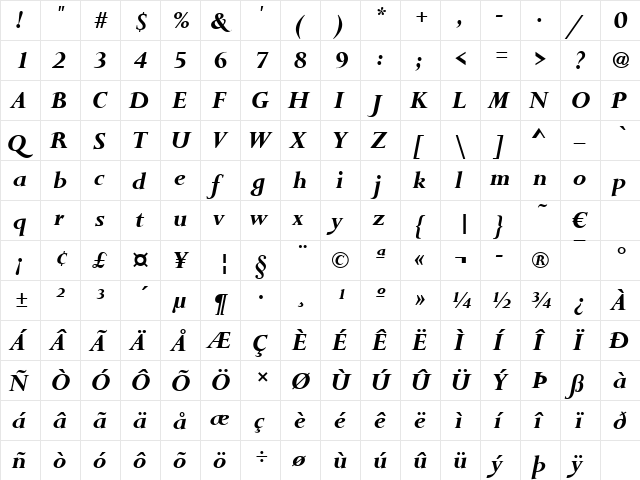
Toujours Bold Italic
Design Context for Toujours Typeface
Toujours is a composed and adaptable typeface that performs quietly and consistently across a wide range of design contexts. Its italic angle brings a sense of urgency and motion to the letterforms. Its bold stroke weight gives it real presence on the page.
Pro Tip: Try Toujours for annotation and caption copy alongside an upright companion — the contrast in angle creates a dynamic but ordered typographic system.